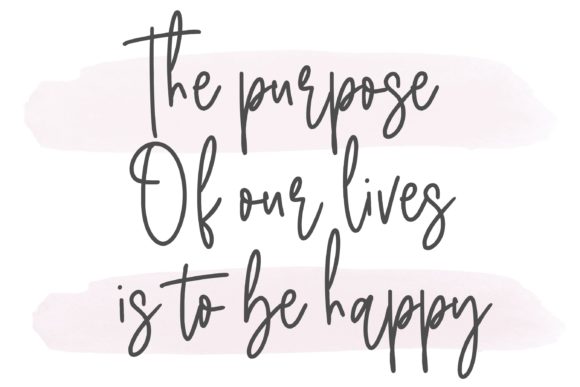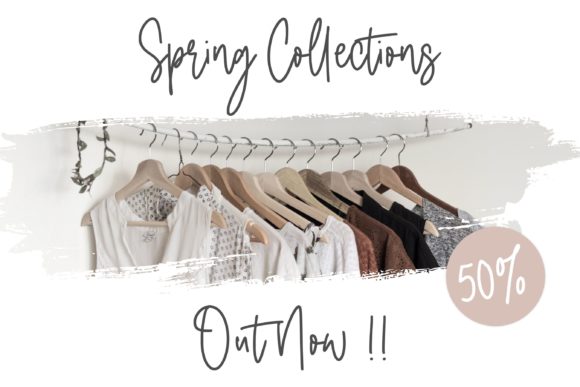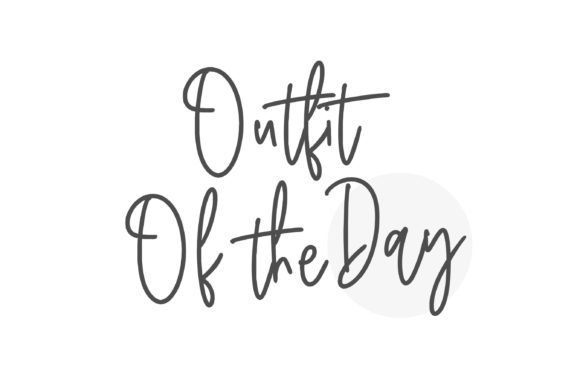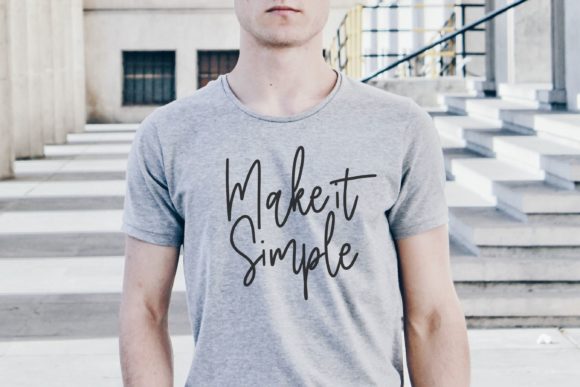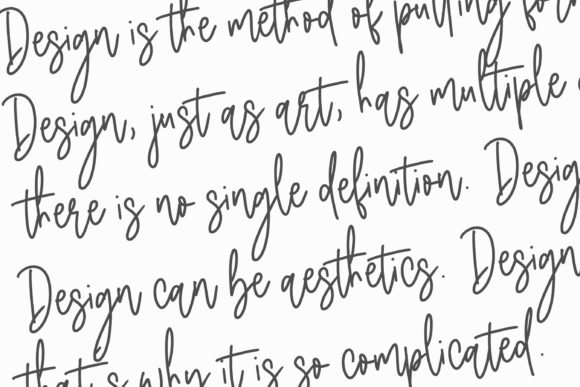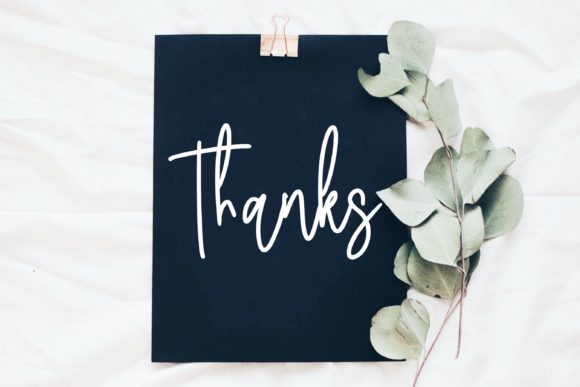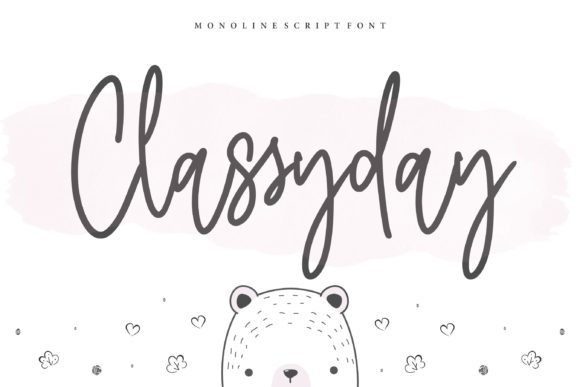
Introducing Classyday Font: Elevate Your Creativity with Elegance
Are you a designer, crafter, or DIY enthusiast looking for a font that can add a touch of sophistication to your projects? Look no further than Classyday, a stunning monoline script font that can turn any creative idea into a true masterpiece. In this article, we’ll dive into the world of Classyday, exploring its features, benefits, and uses, and why it’s the perfect choice for your next project.
What is Classyday Font?
Classyday is a beautiful monoline script font that exudes elegance and refinement. Its sleek, modern design makes it perfect for a wide range of applications, from Instagram graphics and social media posts to calligraphy scripts and DIY projects. With Classyday, you can add a touch of sophistication to your work, making it stand out from the crowd.
Key Features of Classyday Font
- Monoline Script: Classyday features a monoline script design, characterized by smooth, flowing lines that create a sense of continuity and fluidity.
- Elegant and Refined: The font’s sleek, modern design makes it perfect for projects that require a touch of sophistication and elegance.
- Highly Versatile: Classyday can be used for a wide range of applications, from digital graphics to print materials, and even DIY projects.
- Easy to Read: Despite its elegant design, Classyday is highly legible, making it perfect for use in body text, headings, and titles.
Uses of Classyday Font
Classyday is an incredibly versatile font that can be used in a variety of contexts. Here are some ideas to get you started:
- Instagram Graphics: Use Classyday to create stunning Instagram graphics, quotes, and posts that will make your followers take notice.
- Calligraphy Scripts: Classyday’s monoline script design makes it perfect for calligraphy scripts, adding a touch of elegance to your DIY projects.
- DIY Projects: From handmade cards to craft projects, Classyday can add a touch of sophistication to your creations.
- Branding and Marketing: Use Classyday to create professional-looking branding materials, such as logos, brochures, and business cards.
Benefits of Using Classyday Font
So why choose Classyday for your next project? Here are just a few benefits of using this stunning font:
- Instant Elegance: Classyday adds a touch of sophistication to any project, making it perfect for designers and crafters who want to create high-end looking materials.
- Highly Versatile: Classyday can be used in a wide range of contexts, making it a great addition to any designer’s or crafter’s toolkit.
- Easy to Use: Classyday is highly legible and easy to use, making it perfect for designers and crafters of all skill levels.
In conclusion, Classyday is a beautiful monoline script font that can elevate any creative project to new heights. With its elegant design, versatility, and ease of use, Classyday is the perfect choice for designers, crafters, and DIY enthusiasts looking to add a touch of sophistication to their work. Whether you’re creating Instagram graphics, calligraphy scripts, or DIY projects, Classyday is the perfect font to help you turn your creative ideas into true masterpieces.